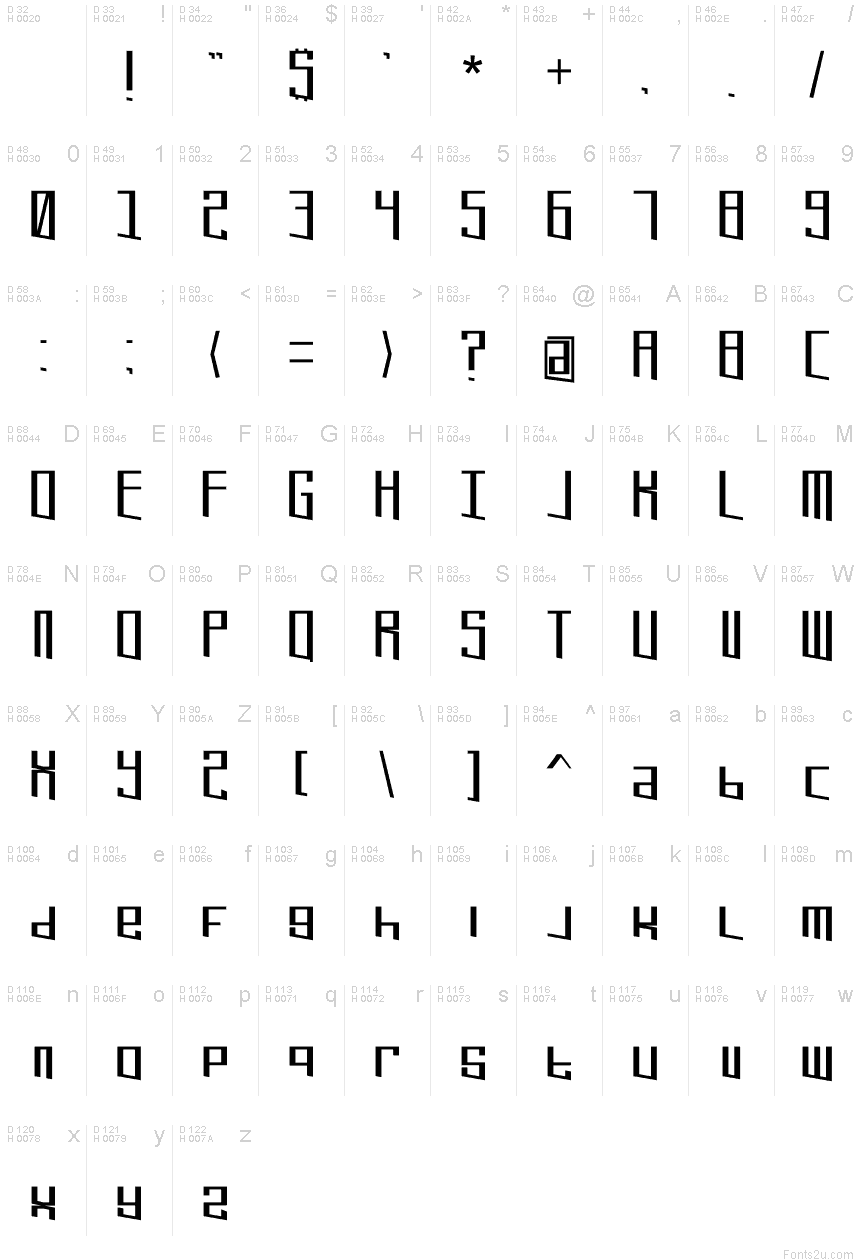
ExtremeRefresh
Extreme Refresh font by Jordie van Rijn is a free techno display typeface. Its sharp, zigzag structure and tall, clipped curves give every word a jolting, electrical rhythm, like text built from neon tubing and hard-edged circuits. Letters feel stacked and slightly off-kilter in a deliberate way, creating a glitchy, futuristic texture that grabs the eye instantly.
Using Extreme Refresh in bold, oversized titles brings a strong sci‑fi and gaming attitude to posters, EDM or techno flyers, esports branding, album covers, and app splash screens. This free font shines when you let it breathe with generous spacing, then pair it with a clean geometric sans for supporting text to keep the layout readable and razor-focused.